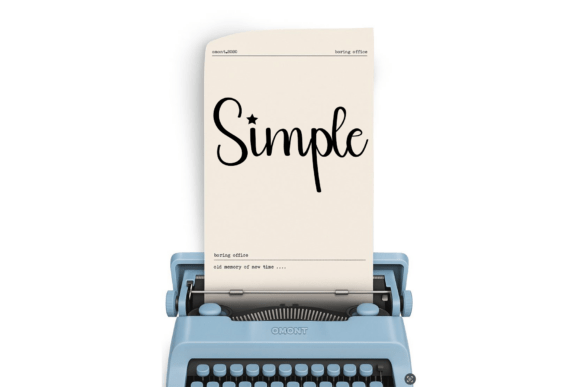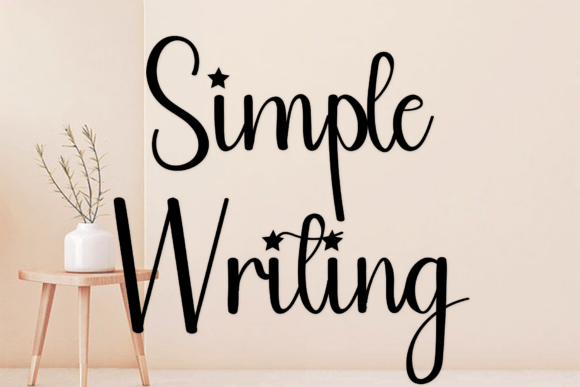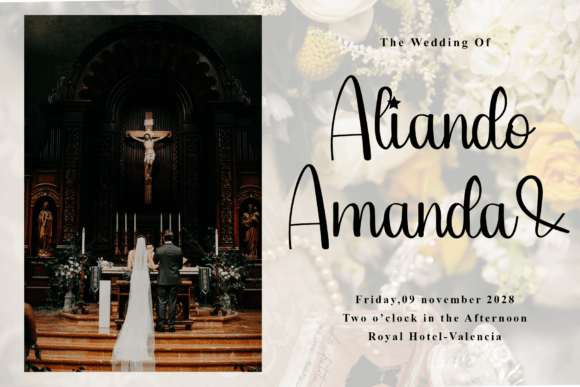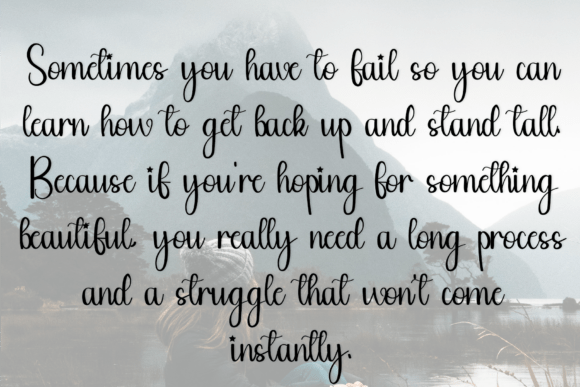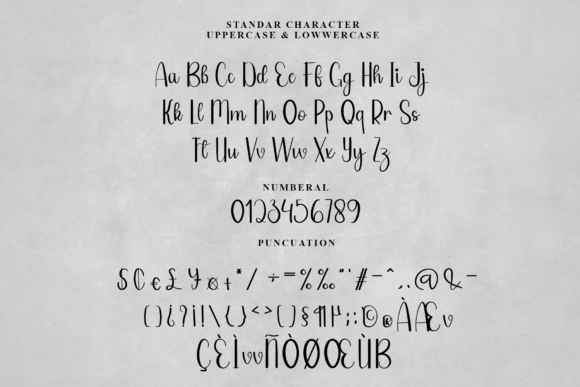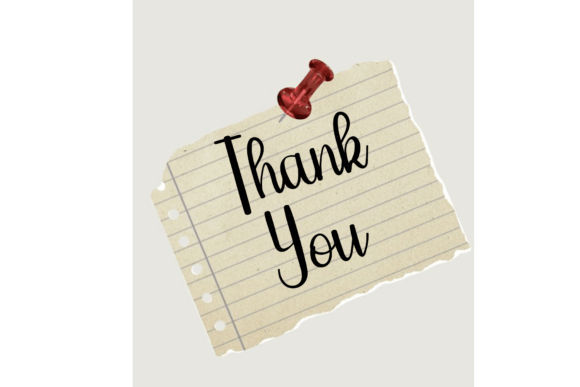
Introducing Cherry Font: The Perfect Blend of Warmth and Personality
In the world of typography, fonts play a crucial role in conveying the tone and personality of a brand, design, or message. Among the numerous fonts available, Cherry Font stands out as a casual handwritten font that radiates warmth and personality. With its smooth strokes, natural curves, and easy-flowing letterforms, Cherry Font captures the charm of authentic handwriting with a modern, approachable feel.
The Characteristics of Cherry Font
Cherry Font boasts a unique set of characteristics that make it an ideal choice for various design projects. Its smooth strokes and natural curves give it an organic, hand-written feel that is both elegant and approachable. The font’s easy-flowing letterforms ensure that it is highly readable, making it perfect for use in quotes, invitations, branding, and social media posts.
Ideal Uses for Cherry Font
Cherry Font’s versatility and charm make it suitable for a wide range of design applications. Some of the ideal uses for Cherry Font include:
- Quotes and Inspirational Messages: Cherry Font’s elegant and cursive style adds a touch of sophistication to quotes and inspirational messages, making them perfect for sharing on social media or using in design projects.
- Invitations and Announcements: The font’s friendly and approachable feel makes it ideal for use in invitations, announcements, and other celebratory designs.
- Branding and Packaging: Cherry Font’s unique personality and charm make it an excellent choice for branding and packaging designs, helping to create a distinctive and memorable identity for businesses and products.
- Social Media Posts: The font’s readability and charm make it perfect for use in social media posts, helping to engage audiences and add a personal touch to online content.
The Benefits of Using Cherry Font
Cherry Font offers several benefits to designers and crafters, including:
- Effortless Style: Cherry Font’s smooth strokes and natural curves give it an effortless style that is both elegant and approachable.
- Versatile Character: The font’s versatility makes it suitable for a wide range of design applications, from quotes and invitations to branding and social media posts.
- Readability and Charm: Cherry Font delivers both readability and charm, making it an excellent choice for designers who want to create engaging and memorable designs.
Tips for Using Cherry Font Effectively
To get the most out of Cherry Font, consider the following tips:
- Pair with Other Fonts: Cherry Font pairs well with other fonts, such as sans-serif fonts, to create visually appealing and engaging designs.
- Use in Combination with Images: The font’s elegant and cursive style makes it perfect for use in combination with images, adding a touch of sophistication and elegance to designs.
- Experiment with Colors: Cherry Font looks great in a variety of colors, so don’t be afraid to experiment and find the perfect color scheme for your design.
Cherry Font is a casual handwritten font that radiates warmth and personality, making it an excellent choice for designers and crafters. With its smooth strokes, natural curves, and easy-flowing letterforms, it captures the charm of authentic handwriting with a modern, approachable feel. Whether you’re creating quotes, invitations, branding, or social media posts, Cherry Font is sure to add a personal and friendly touch to your designs.